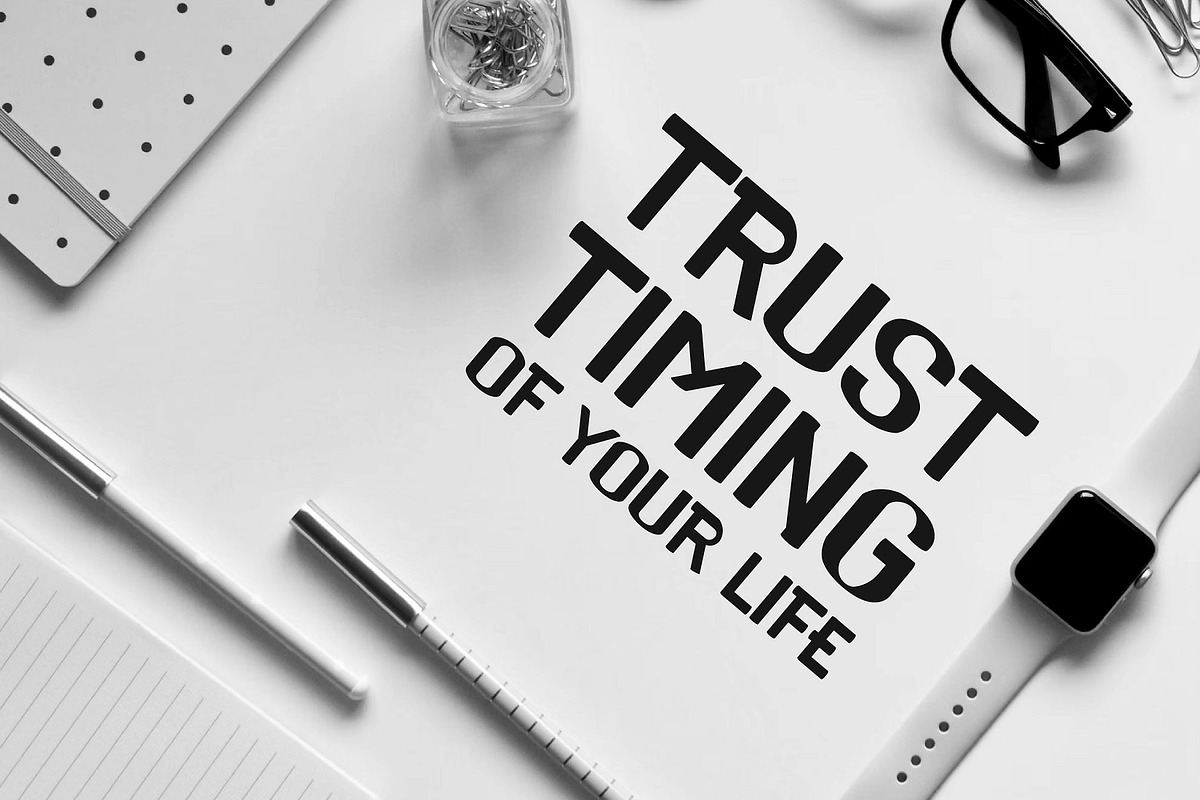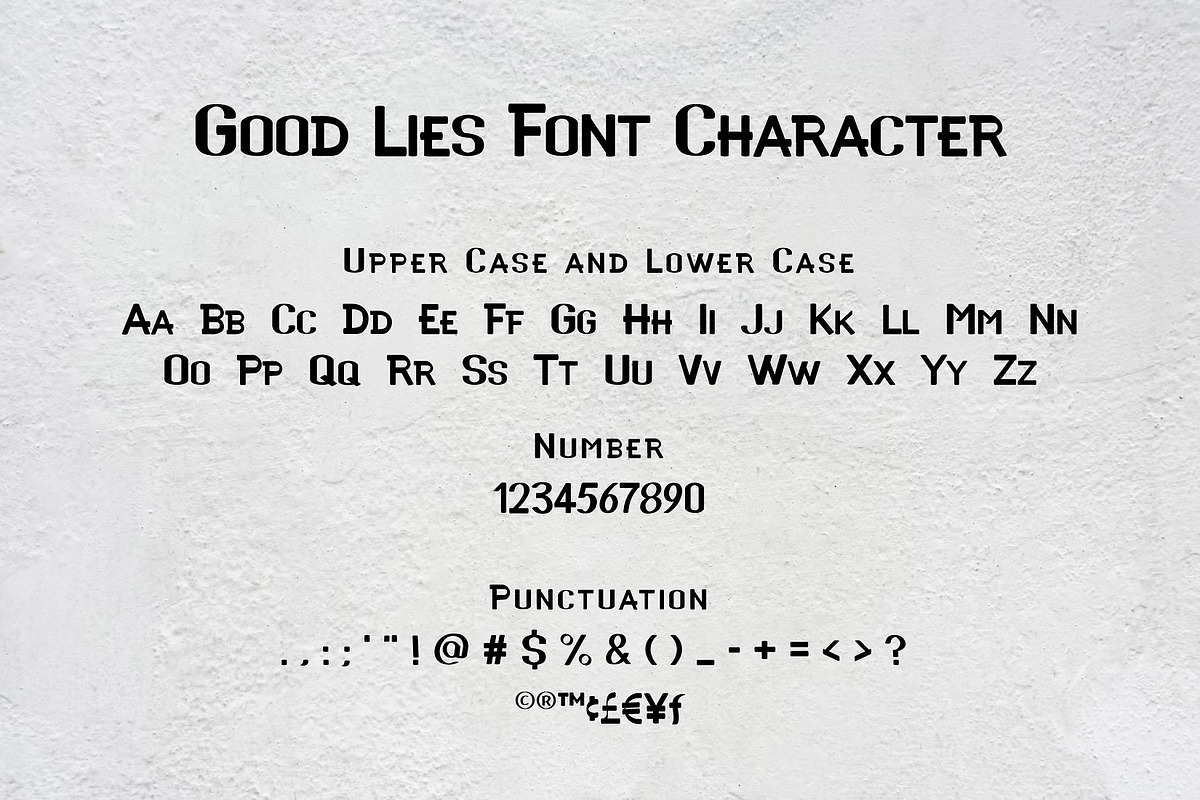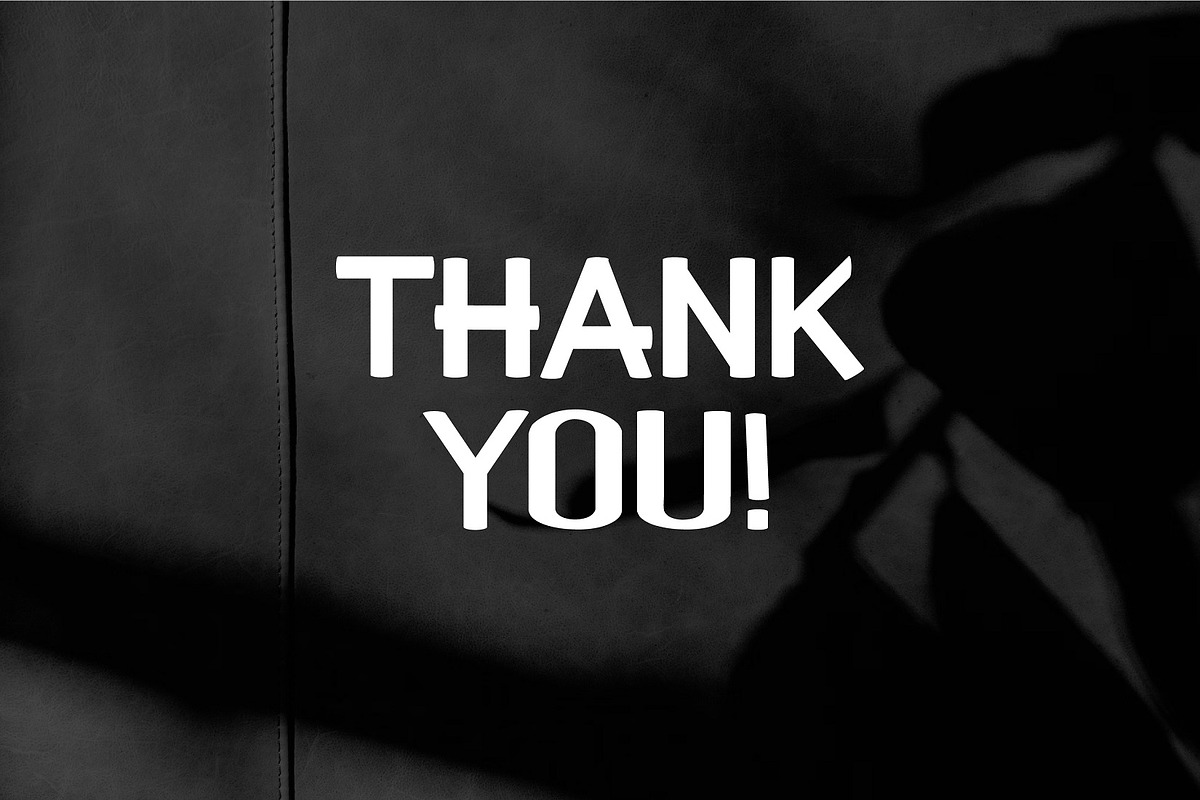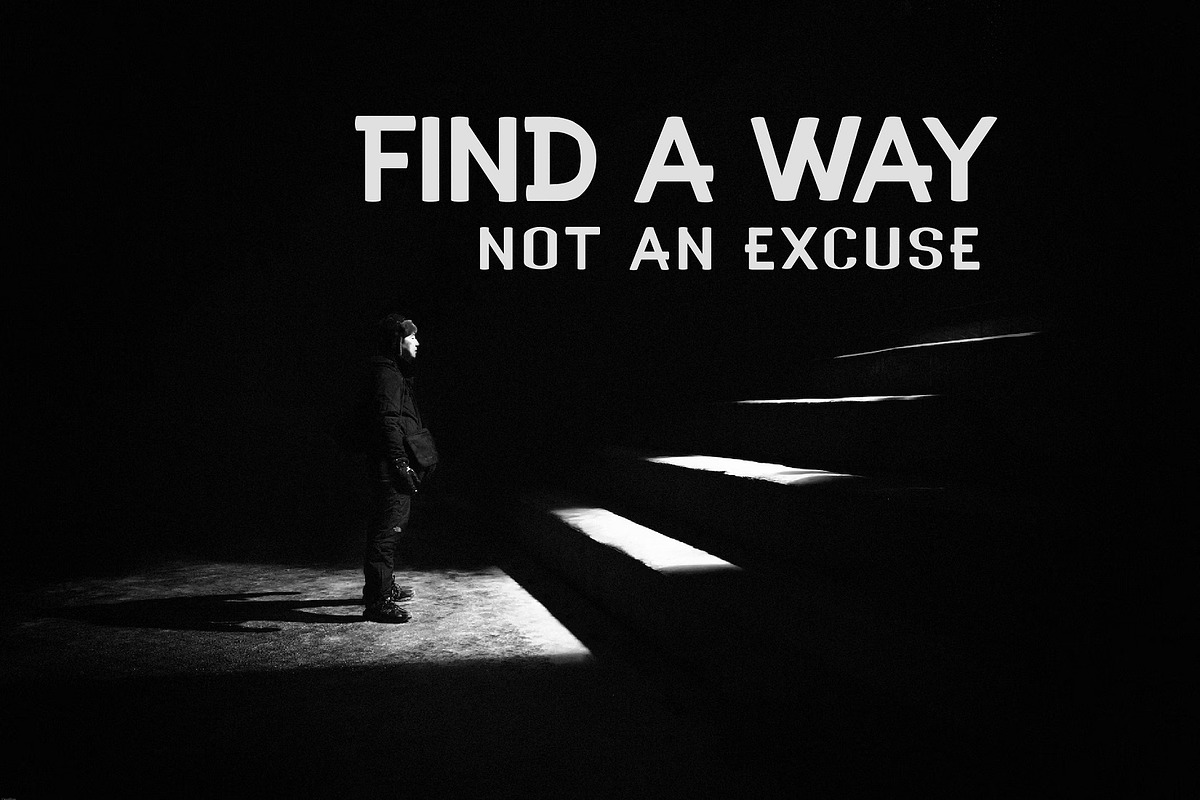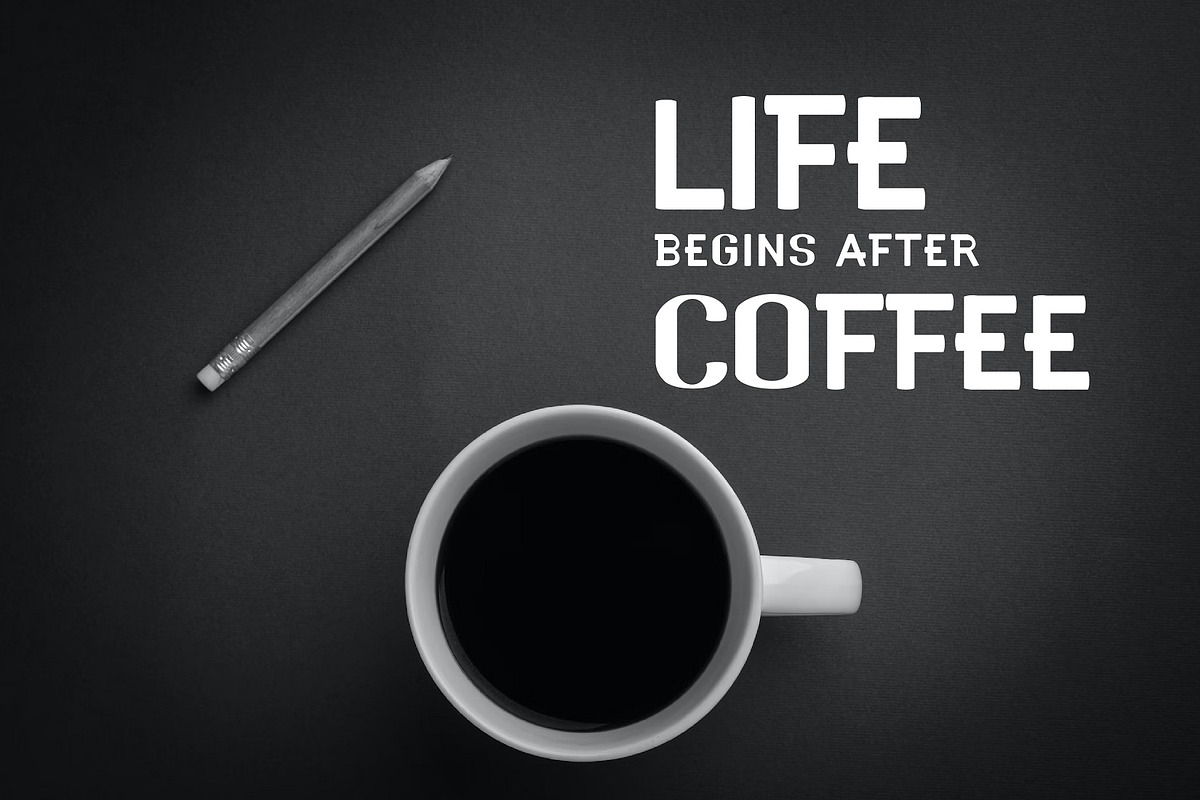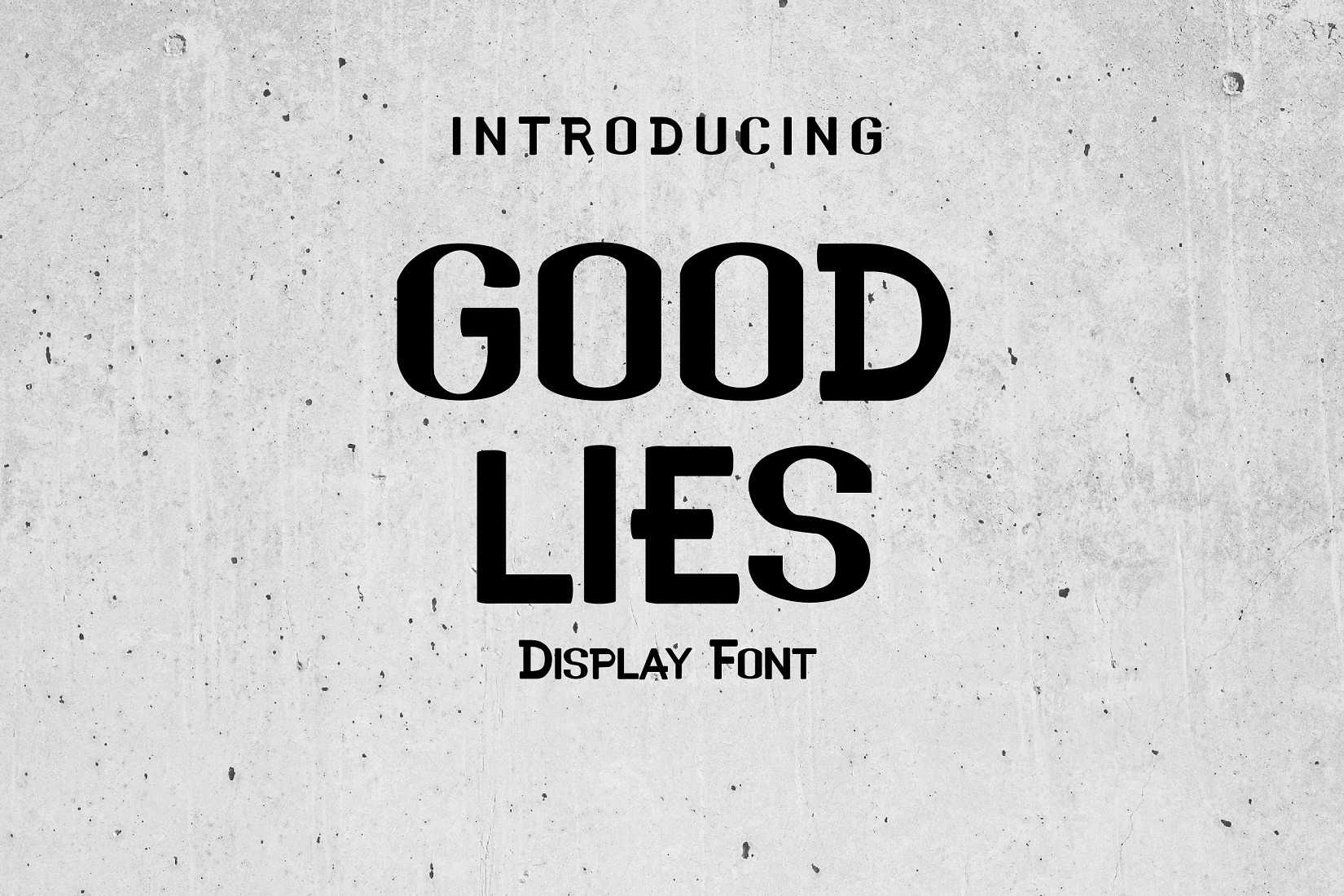
Good Lies Modern Sans Display Font
Introducing Good Lies - Sans Serif Display Font
Good Lies is a modern sans display font. Perfect for the title, typography, clothes, Poster, magazines, brochures, packaging,Websites and much more for your design needs, making your designs more modern and professional.